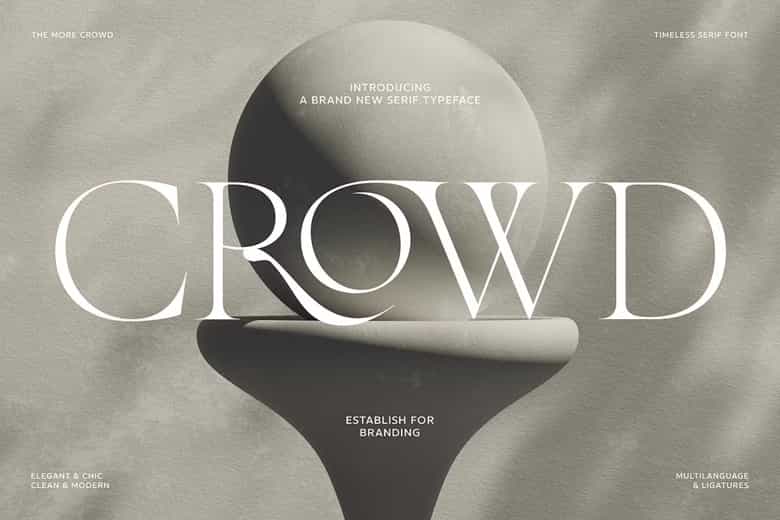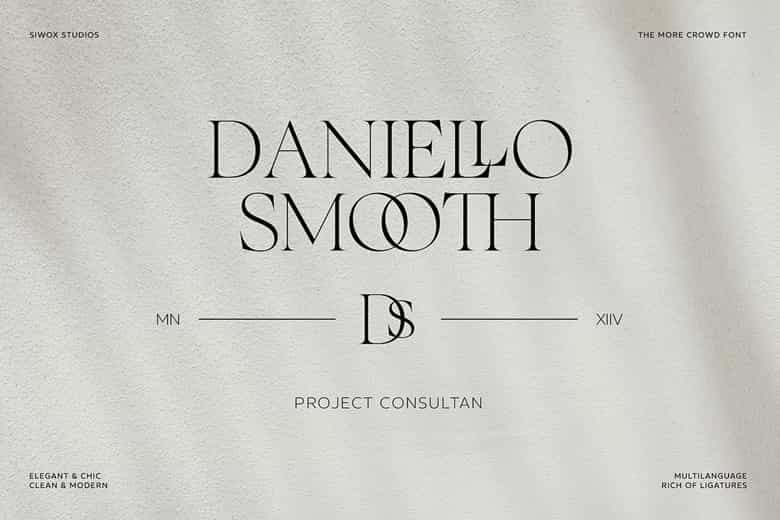
Discover The More Crowd Font, part of the Serif collection—a versatile and unique font perfect for adding a personal touch to your projects. Download it for free and enjoy crafting designs with style, from invitations to social media posts. This font is available exclusively for personal use, giving you the freedom to create without limits. Unlock your creativity with The More Crowd Font today!
Meet The More Crowd – a new serif typeface that embodies the spirit of timeless sophistication while preserving the freshness of the modern world. The contrasts and the fluent shapes give an impressive appearance, which underlines every artistic intention. Whether you are laying out an exquisite magazine or creating a strong brand image, or designing a website, The More Crowd adds that touch of finesse and flexibility that will enhance your project.